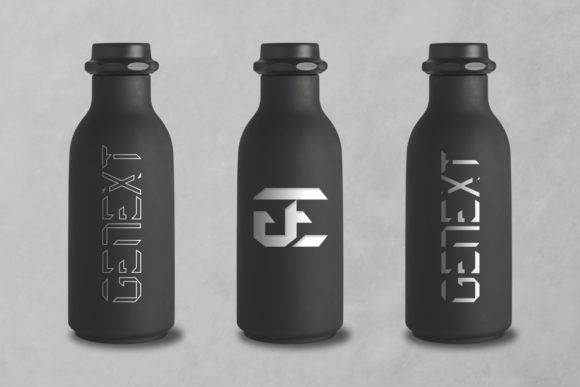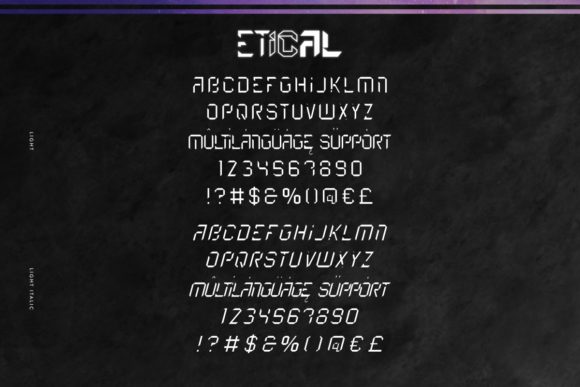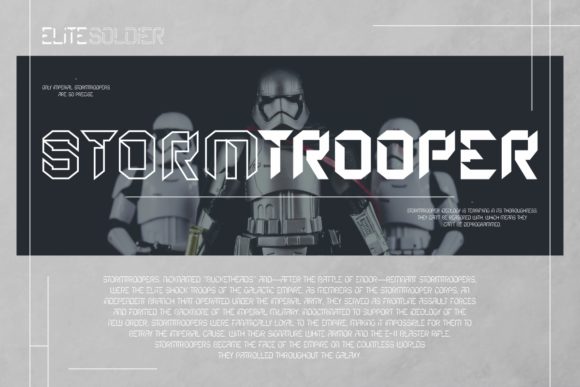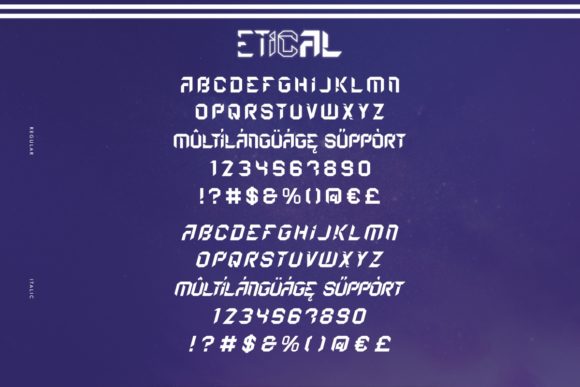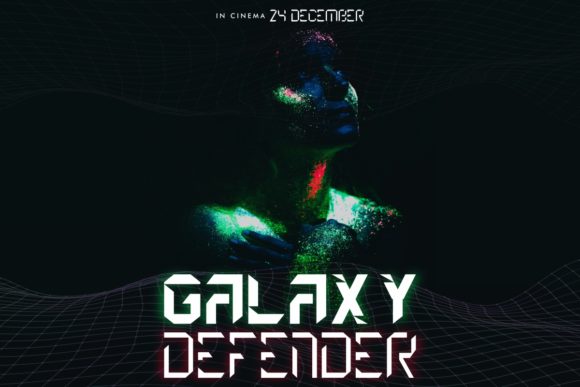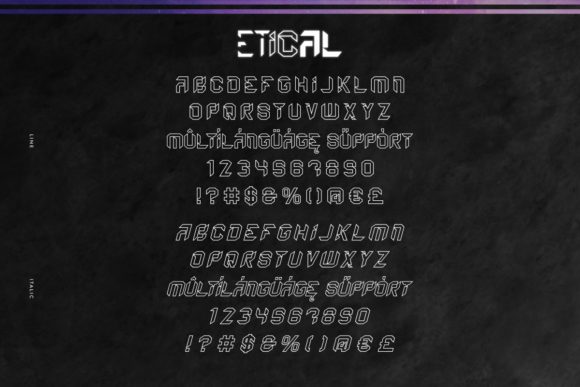
Introducing Etical Font: The Bold and Futuristic Display Font for Stunning Designs
In the world of design, fonts play a crucial role in conveying the message and aesthetic of a project. For designers and crafters looking to make a statement, Etical Font is an exciting addition to the world of typography. Etical is a bold and futuristic display font that is sure to elevate your designs to the next level. In this article, we’ll explore the features and possibilities of Etical Font, and why it’s a must-have for any designer or crafter looking to create stunning visual content.
What is Etical Font?
Etical Font is a bold and futuristic display font designed to make a statement. Its sleek and modern design makes it perfect for use on posters, flyers, prints, and any other design project that requires a bold and eye-catching font. Etical Font is a versatile typeface that can be used in a variety of contexts, from advertising and branding to packaging and editorial design.
Key Features of Etical Font
So, what sets Etical Font apart from other fonts? Here are some of its key features:
• Bold and Futuristic Design: Etical Font has a bold and futuristic design that is sure to grab attention. Its sleek lines and modern aesthetic make it perfect for designs that require a cutting-edge look.
• Highly Versatile: Etical Font is a highly versatile typeface that can be used in a variety of contexts, from advertising and branding to packaging and editorial design.
• Easy to Read: Despite its bold design, Etical Font is easy to read, making it perfect for use on posters, flyers, and other print materials.
• Endless Possibilities: With Etical Font, the possibilities are endless. Use it to create stunning posters, eye-catching flyers, or bold and modern branding materials.
Why Use Etical Font?
So, why should designers and crafters use Etical Font? Here are just a few reasons:
• Make a Statement: Etical Font is a bold and eye-catching font that is sure to make a statement. Use it to grab attention and create a lasting impression.
• Stand Out from the Crowd: With Etical Font, you can create designs that stand out from the crowd. Its unique and modern design makes it perfect for designers who want to create something truly unique.
• Perfect for Branding and Advertising: Etical Font is perfect for use in branding and advertising materials, such as logos, posters, and flyers.
How to Use Etical Font
• Use it as a Display Font: Etical Font is perfect for use as a display font. Use it to create bold and eye-catching headlines and titles.
• Experiment with Different Sizes: Etical Font looks great in a variety of sizes. Experiment with different sizes to find the one that works best for your design.
• Pair it with Other Fonts: Etical Font can be paired with other fonts to create a unique and interesting design. Experiment with different font combinations to find the one that works best for your project.
Font Name Etical Font
Author RaisProject
In conclusion, Etical Font is a bold and futuristic display font that is sure to elevate your designs to the next level. Its sleek and modern design makes it perfect for use on posters, flyers, prints, and any other design project that requires a bold and eye-catching font. With its highly versatile design and endless possibilities, Etical Font is a must-have for any designer or crafter looking to create stunning visual content.